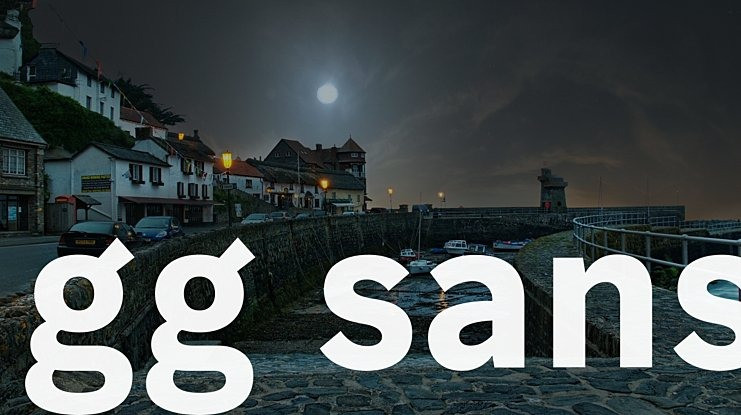
Gg sans Font, Its optimum legibility, clean, and geometric look is perfect branding, brochures, greeting cards, quotes, posters, stationary, design titles, blog headers, and much more.
Gg sans Font